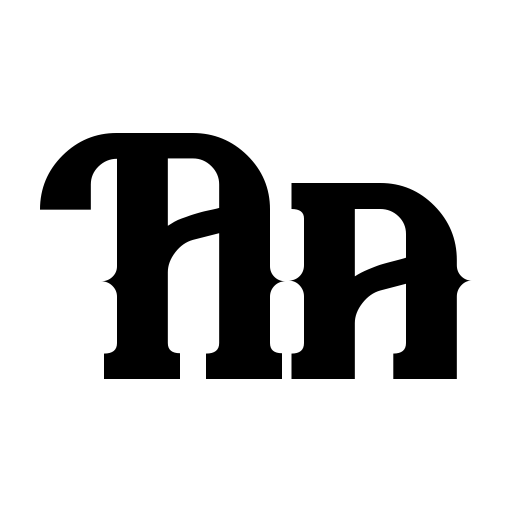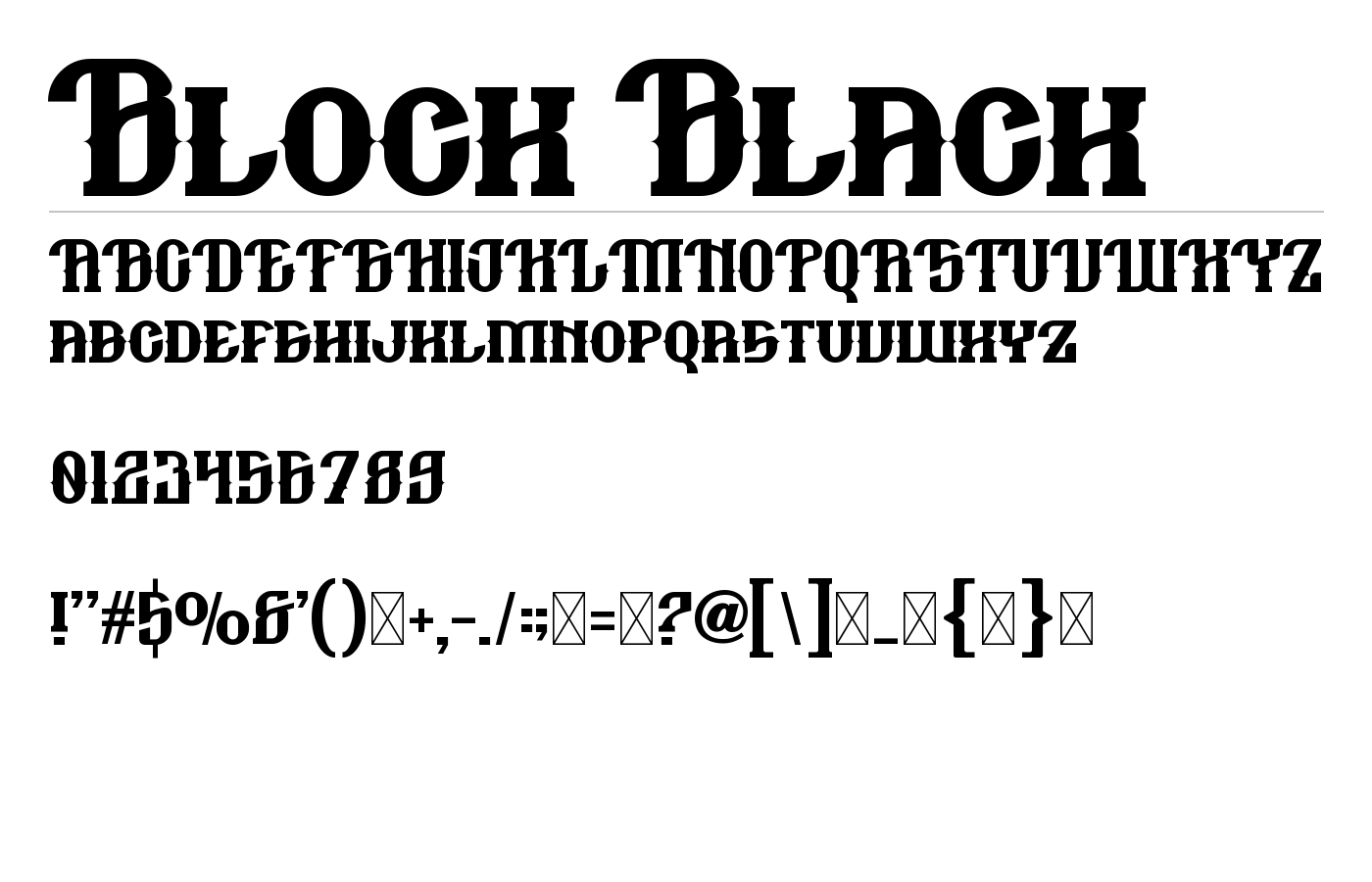
Block Black is a bold serif typeface with a strong, condensed build and high contrast between thick and thin strokes, featuring distinctive bracketed serifs and ornamental details that give it a vintage, decorative feel. Its all-caps style with sharp edges and unique letterforms makes it ideal for eye-catching headlines, logos, and posters, especially in contexts that want to convey strength and classic style with a touch of elegance. This font works best where bold impact and character are needed rather than extended body text.
Block Black Font